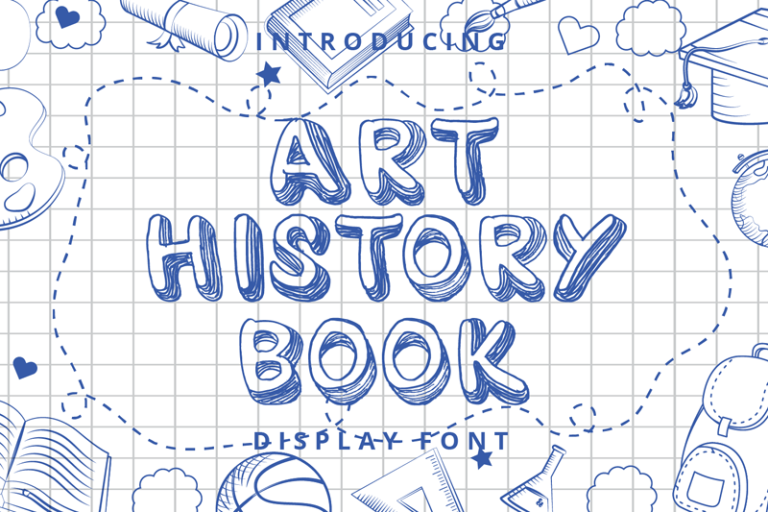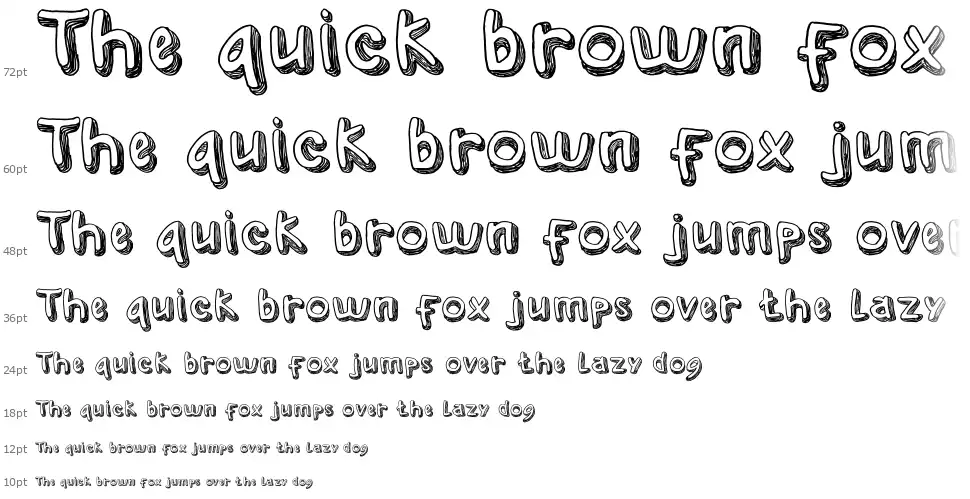
Art History Book Font . Available in both ttf and otf typeface formats. The art history book font contains over 20 beautifully designed characters. Art history book font is a cool cartoon typeface designed by andri au. Art history book by reguler studio. ️ customize your own preview on ffonts.net to. Discover the perfect font for your history project with our collection of free history fonts. 147,456 downloads free for personal use. Art history book is a cool outlined display font. Art history book by free for personal use. But any donation are very appreciated. Art history book is a fancy type font that can be used on any device such as pc, mac, linux, ios. This demo font is for personal use only! Download art history book font. With a variety of styles from vintage to modern, you'll. Paypal account for donation :.
Art history book font is a cool cartoon typeface designed by andri au. But any donation are very appreciated. The art history book font contains over 20 beautifully designed characters. Art history book is a cool outlined display font. Paypal account for donation :. Art history book font download is available free from fontget. With a variety of styles from vintage to modern, you'll. Download art history book font. Its cute style makes it incredibly fitting to a large pool of designs. Get your very own free download of the art history book font, designed and created by reguler studio.
Art History Book Font But any donation are very appreciated. Get your very own free download of the art history book font, designed and created by reguler studio. Art history book font is a cool cartoon typeface designed by andri au. Download art history book font. The art history book font contains over 20 beautifully designed characters. 147,456 downloads free for personal use. Discover the perfect font for your history project with our collection of free history fonts. Its cute style makes it incredibly fitting to a large pool of designs. But any donation are very appreciated. Art history book by reguler studio. Art history book is a fancy type font that can be used on any device such as pc, mac, linux, ios. With a variety of styles from vintage to modern, you'll. This demo font is for personal use only! Paypal account for donation :. Art history book is a cool outlined display font. ️ customize your own preview on ffonts.net to.
Art History Book free font Art History Book Font 147,456 downloads free for personal use. Its cute style makes it incredibly fitting to a large pool of designs. Art history book font is a cool cartoon typeface designed by andri au. With a variety of styles from vintage to modern, you'll. Art history book by free for personal use. Paypal account for donation :. Art history book by reguler. Art History Book Font.
Historycal 2 Font Styles Stunning Display Fonts Creative Market Art History Book Font Art history book by reguler studio. With a variety of styles from vintage to modern, you'll. But any donation are very appreciated. This demo font is for personal use only! Available in both ttf and otf typeface formats. 147,456 downloads free for personal use. Art history book by free for personal use. Art history book is a cool outlined display. Art History Book Font.
Art History Book Font download free Art History Book Font Discover the perfect font for your history project with our collection of free history fonts. But any donation are very appreciated. Get your very own free download of the art history book font, designed and created by reguler studio. Download art history book font. Its cute style makes it incredibly fitting to a large pool of designs. Art history book. Art History Book Font.
Historycal 2 Font Styles Serif Fonts Creative Market Art History Book Font Art history book font is a cool cartoon typeface designed by andri au. 147,456 downloads free for personal use. Paypal account for donation :. Art history book is a cool outlined display font. Get your very own free download of the art history book font, designed and created by reguler studio. Available in both ttf and otf typeface formats. ️. Art History Book Font.
Art History Book free font Art History Book Font Its cute style makes it incredibly fitting to a large pool of designs. Get your very own free download of the art history book font, designed and created by reguler studio. Art history book is a cool outlined display font. Download art history book font. Art history book font download is available free from fontget. This demo font is for. Art History Book Font.
6 historical fonts that changed how we see the world CNN Style Art History Book Font Paypal account for donation :. But any donation are very appreciated. ️ customize your own preview on ffonts.net to. Discover the perfect font for your history project with our collection of free history fonts. Get your very own free download of the art history book font, designed and created by reguler studio. Art history book font download is available free. Art History Book Font.
ART HISTORY BOOK font Art History Book Font Art history book is a fancy type font that can be used on any device such as pc, mac, linux, ios. With a variety of styles from vintage to modern, you'll. 147,456 downloads free for personal use. Art history book font is a cool cartoon typeface designed by andri au. But any donation are very appreciated. This demo font is. Art History Book Font.
Introduction to Art History Best Art History Books for Beginners Art History Book Font Available in both ttf and otf typeface formats. Paypal account for donation :. Download art history book font. With a variety of styles from vintage to modern, you'll. Discover the perfect font for your history project with our collection of free history fonts. Its cute style makes it incredibly fitting to a large pool of designs. 147,456 downloads free for. Art History Book Font.
Roman fonts from Draughtsman's Alphabets by Hermann Es… Flickr Art History Book Font Art history book font is a cool cartoon typeface designed by andri au. Its cute style makes it incredibly fitting to a large pool of designs. But any donation are very appreciated. This demo font is for personal use only! Available in both ttf and otf typeface formats. Download art history book font. Art history book font download is available. Art History Book Font.